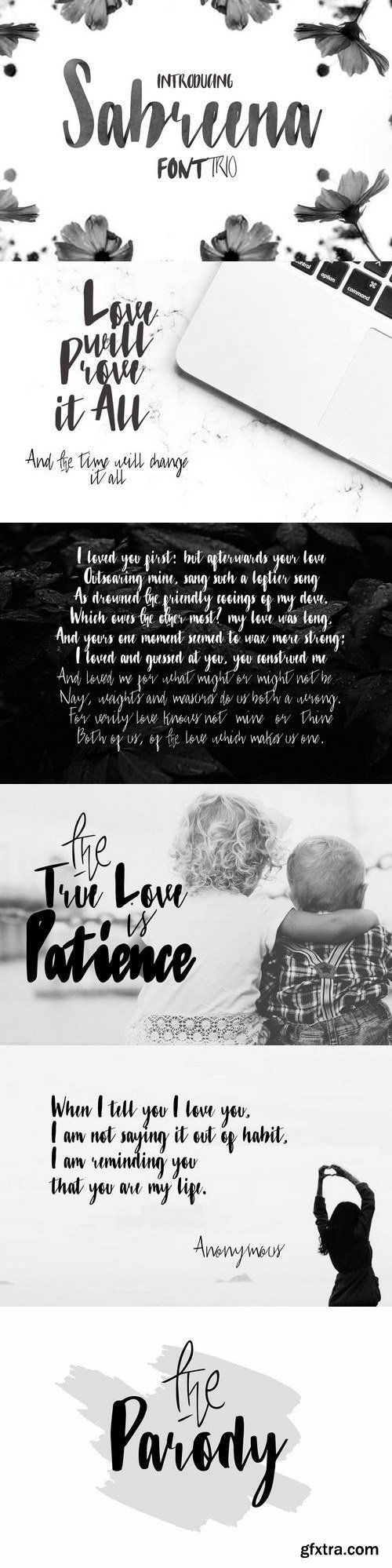
Introducing, "Sabreena Script" font, after a long time not uploading new item, finally Ovoz Creative start to creating new font. With womanly touch, and beauty packed into script, this font very suitable use for wedding invitation, congratulation art, or everything about beauty. Advantage this font has more advantages, such as special opentype, alternate. and so many glyph option, so you wont confuse to choose word or letter. In a few words, this font has adventage, for example more unique and unusual character "THE" Available into uppercase, lowercase, symbol, numeral, punctuation and including so many variant of glyph. Also suitable to t-shirt, jacket, hat, or everything related about merchandise.